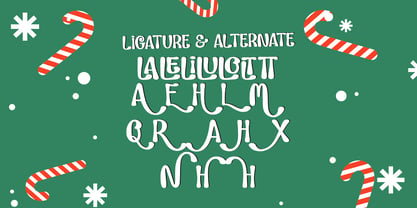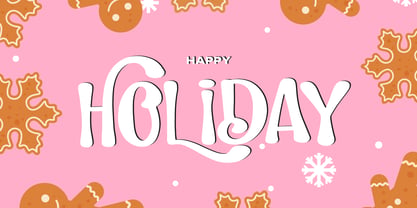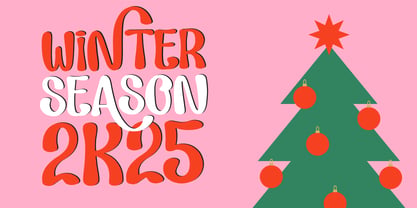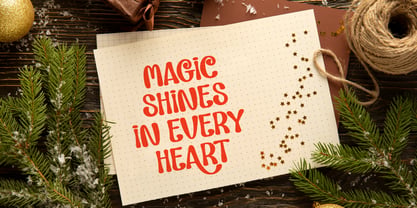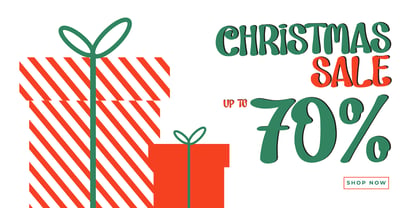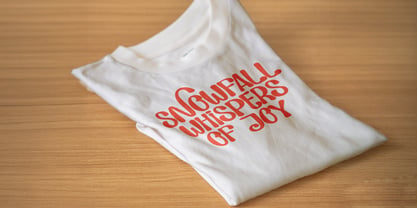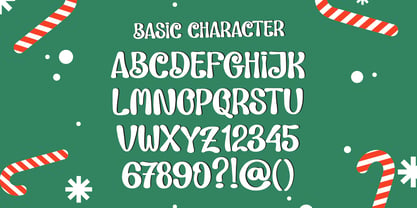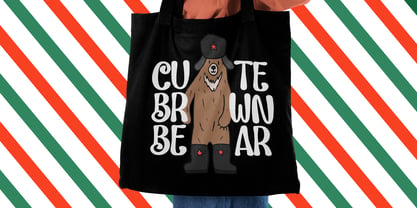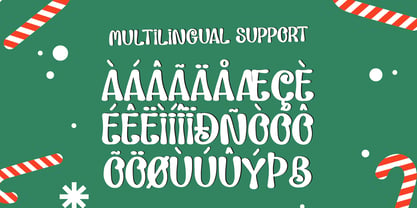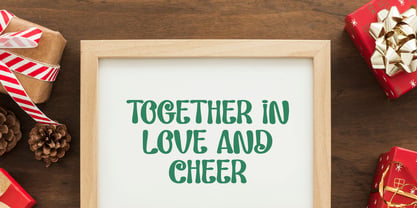
Slays Quiver
by Tini Fitriani
The Slays Quiver Font Family was designed by and published by Tini Fitriani. Slays Quiver contains 1 styles. More about this family
Slays Quiver | Playful Handwritten, from Gracetypestudio, suitable for any projects such as: logos, branding projects, homeware designs, product packaging, mugs, quotes, posters, shopping bags, t-shirts, book covers, name card, invitation cards, greeting cards, label, photography, watermark, special events, and all your other lovely projects that need a Cutout Handwritten taste.